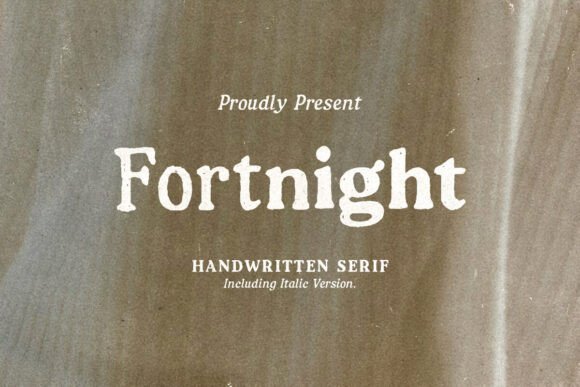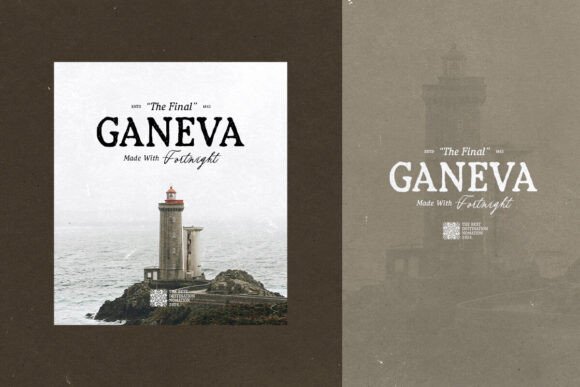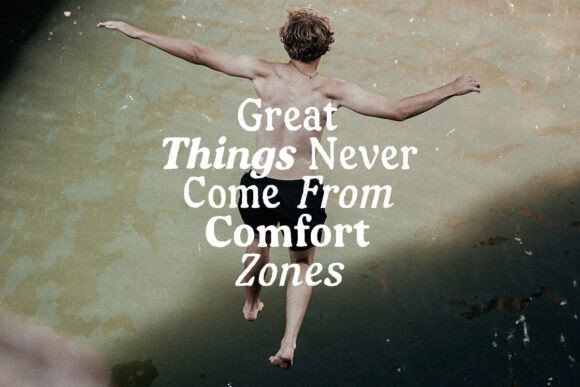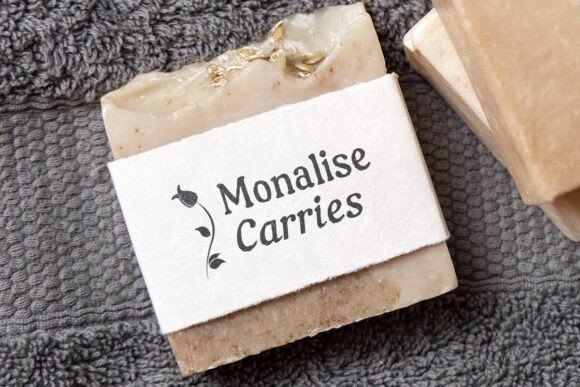
Fortnight Font: A Rustic Serif for Organic Logo Design & Branding
About the Fortnight Font
Let us introduce you to Fortnight Font, where timeless design meets modern craftsmanship. Fortnight is a hand-lettered serif font family with handmade and natural rough looks. It’s perfect for projects that call for a handcrafted, organic feel. This font comes with Regular, Italic, Bold, and Bold Italic, which you can use to make your presentations more appealing.
Fortnight excels in display applications such as headlines, logos, and short-form text on posters or packaging. Its handcrafted charm adds personality to branding for artisan products, craft breweries, or boutique businesses. Avoid using it for large blocks of body text or UI elements; the irregularities in the letterforms would hinder readability.
Pairing Fortnight with a clean sans-serif like Lato or Open Sans provides a strong contrast, balancing its organic texture with modern clarity. For a more traditional feel, consider pairing it with a classic serif like Garamond or a slightly more geometric serif like Playfair Display. These pairings create visual harmony and enhance the overall design impact.
Fortnight’s personality is best described as rustic and approachable, conveying a sense of handcrafted authenticity and warmth.
Fortnight Font Usage Examples
Fortnight Font Example